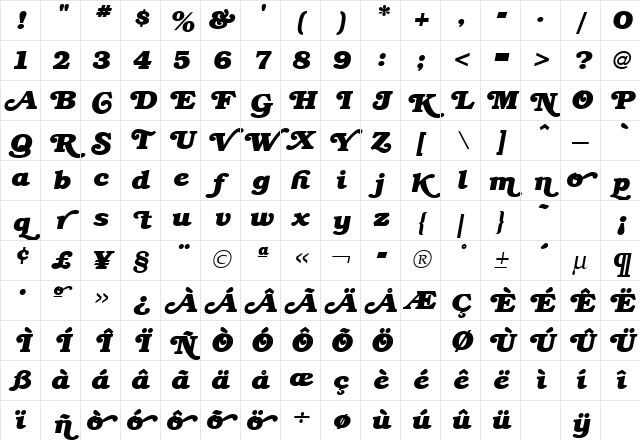
Bookman Bold Italic
Bookman Family
Complete Bookman Bold Italic glyph index. Displaying only characters natively supported by Bookman Bold Italic font.
Design Context for Bookman
Bookman is a composed and adaptable typeface that performs quietly and consistently across a wide range of design contexts. The slanted form adds forward momentum and visual energy. Its bold stroke weight gives it real presence on the page.
Pro Tip: Use Bookman for emphasis, pull quotes, and subheadings where its slanted energy can add rhythm to the layout.